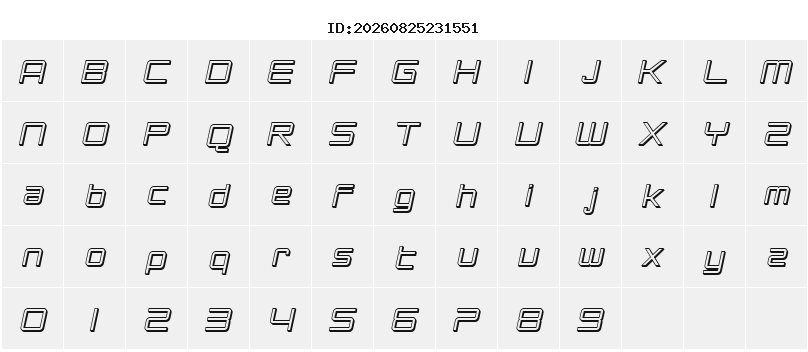
SF Chromium 24 Preview
• Font Name: SF Chromium 24
• Font Style: Oblique
• Font ID: SF Chromium 24
• Full Font Name: SF Chromium 24 Oblique
• PostScript Name: SFChromium24-Oblique
• Character Count: 243
About SF Chromium 24.ttf
SF Chromium 24.ttf is a modern, elegant sans-serif font designed for ultimate readability and visual harmony. Perfect for branding, headlines, web design, and print materials.